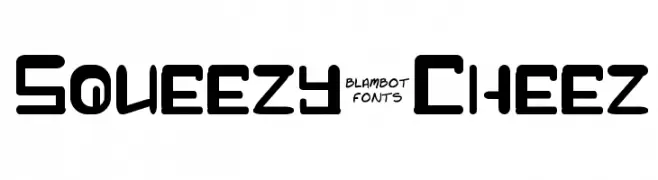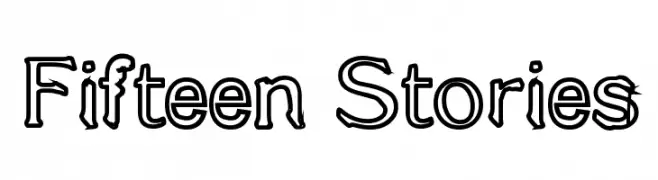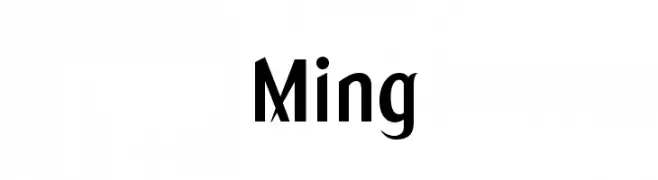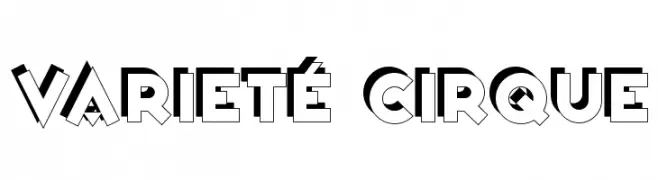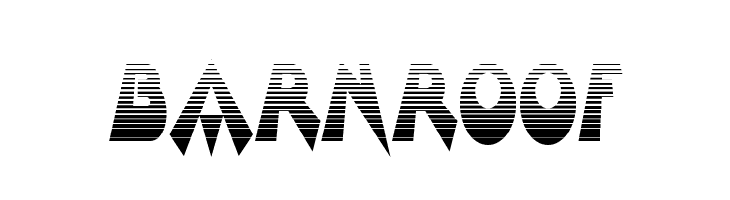
A bold, decorative font with a vintage, playful style.
A bold, artistic font with sharp, angular strokes and dynamic flair.
A bold, decorative font with a playful 3D effect and geometric design.
A bold, decorative font with geometric outlines and playful cutouts.
A bold, geometric font with a distinctive striped pattern, perfect for impactful designs.
A bold, retro-style font with thick, rounded strokes and unique character shapes.